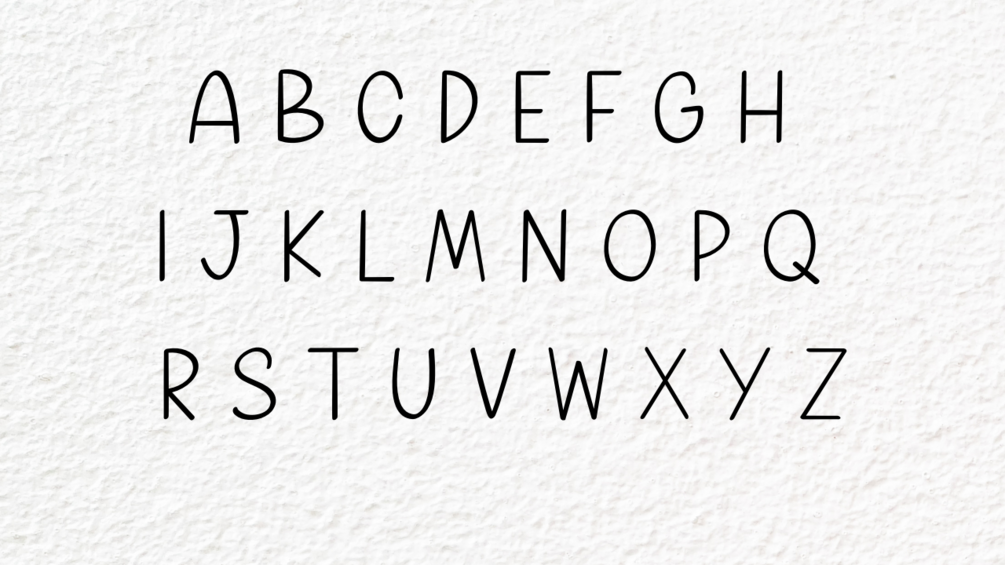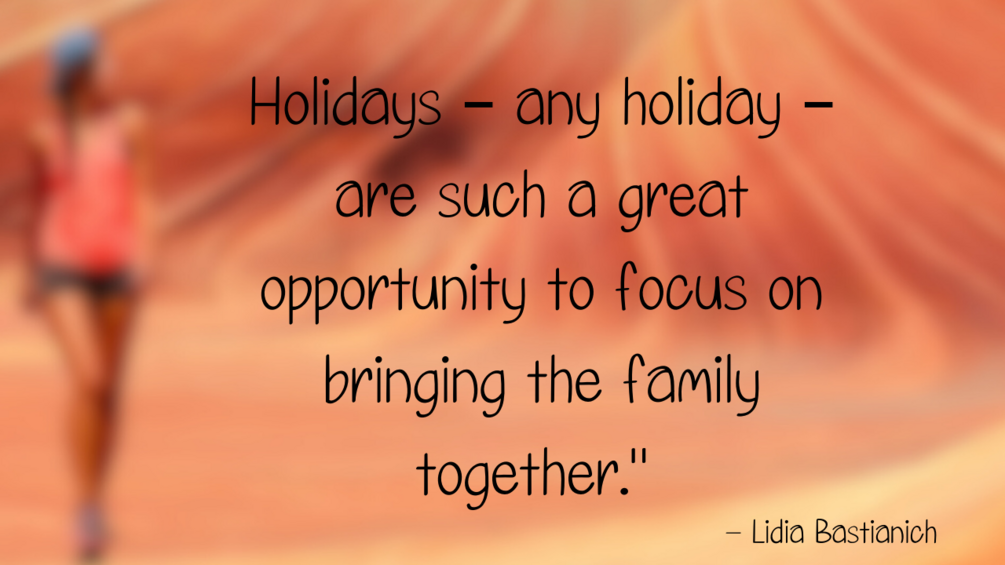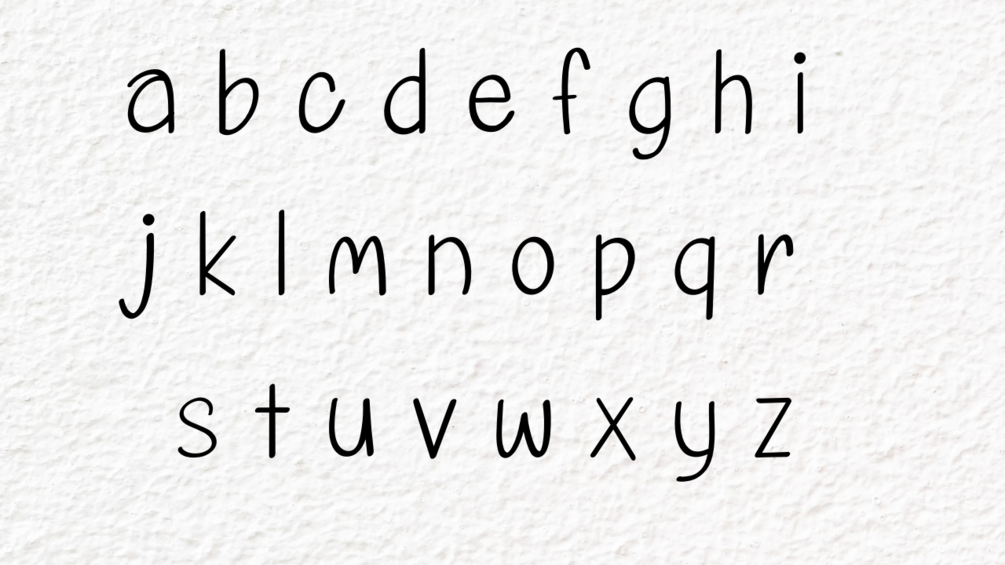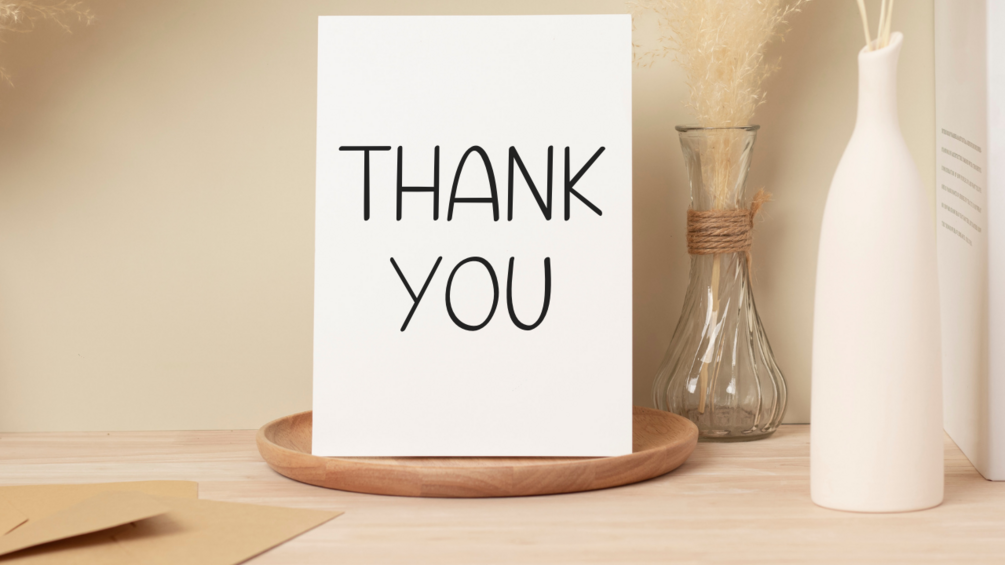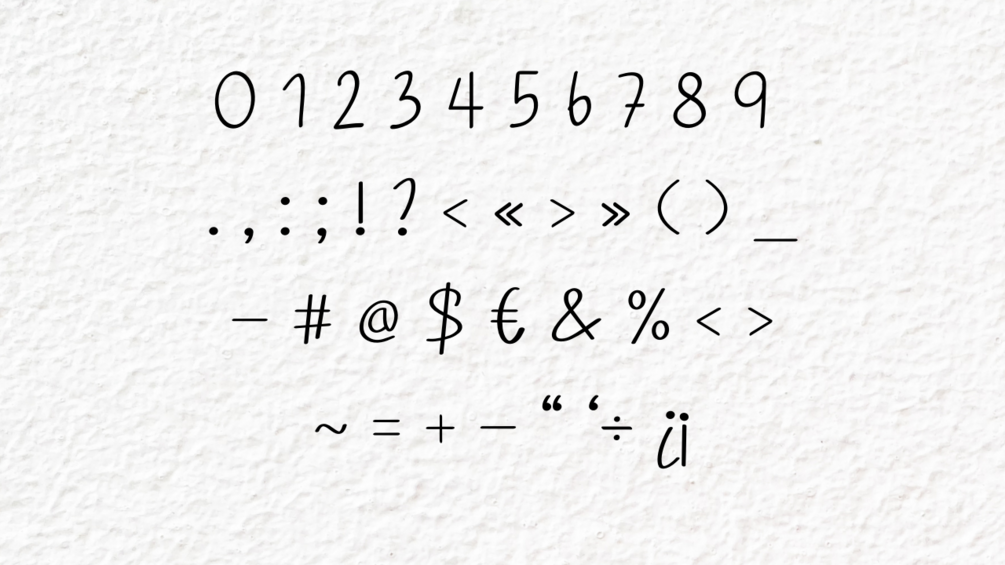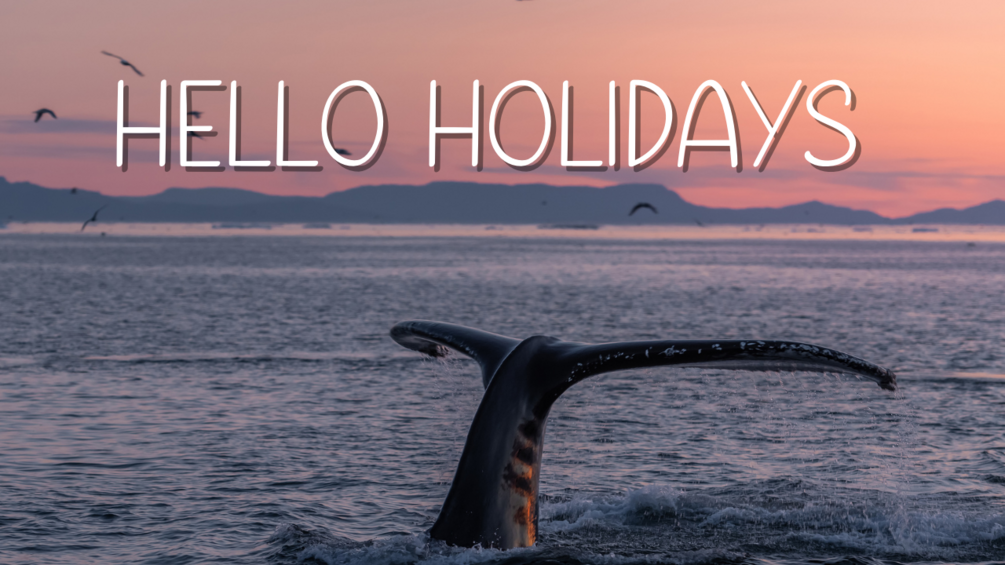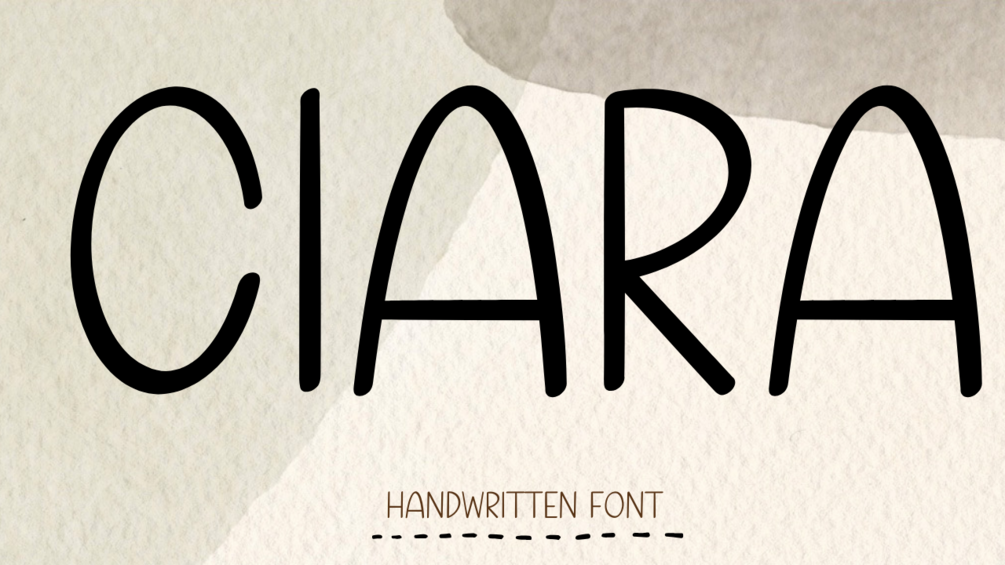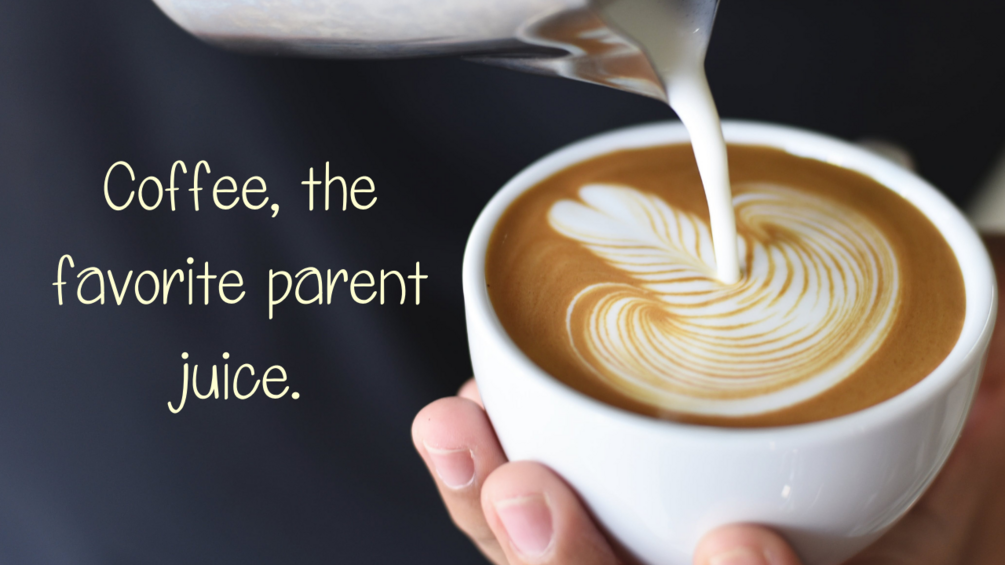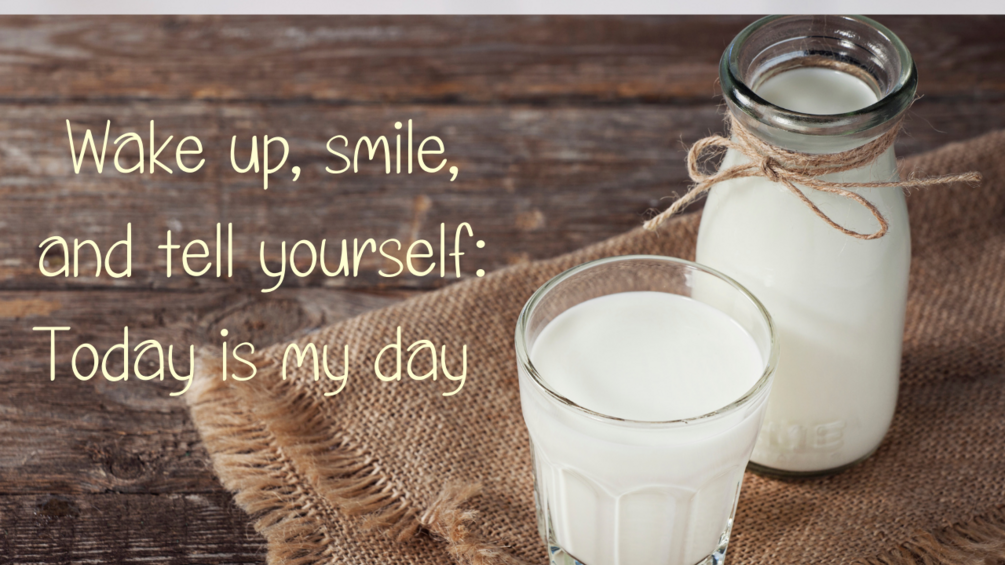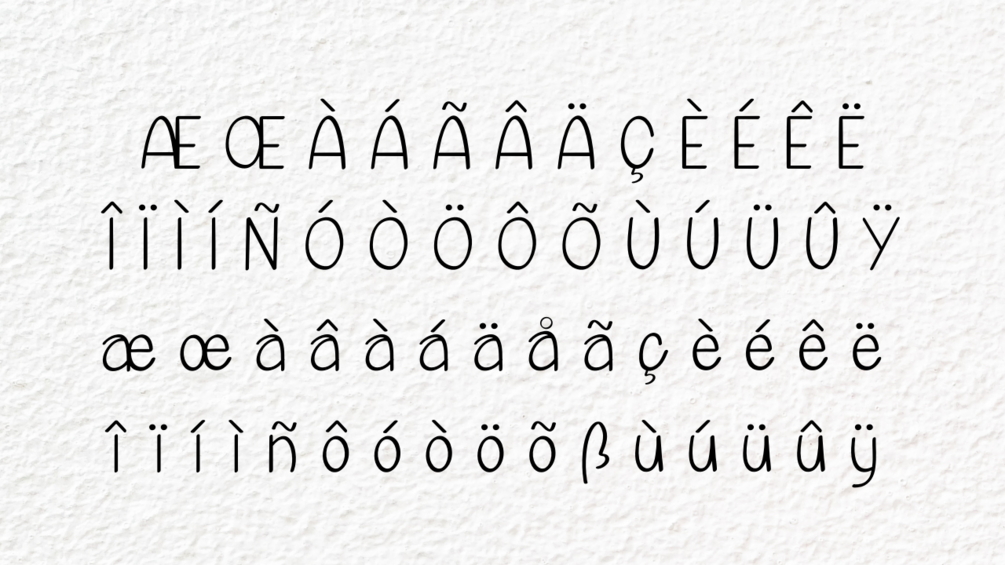
Ciara handwritten font
ciara is a cute handwritten font. Its natural and unique style makes it suitable for a variety of design ideas. Add it confidently to your projects, and you will love the results,Perfect for Easter, back to school, wedding, party decoration, invitations, Fall, Halloween, Christmas, posters, blogs, clothing, child-related designs, Cloth bag,mug,social media posts, creating greeting cards, labels, or scrapbook pages, or anything that needs